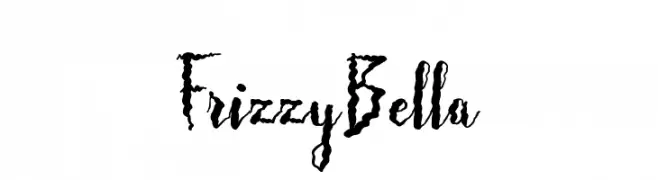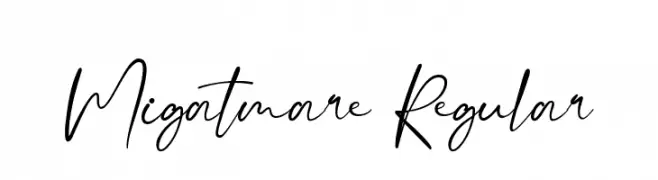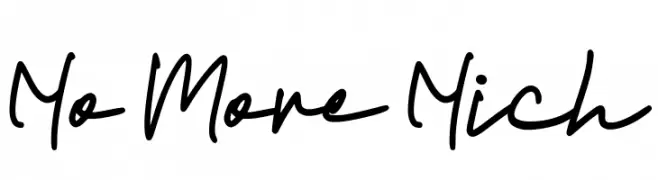
A distressed, chaotic font with a grungy, painted appearance.
A whimsical, handwritten font with a playful and elegant style.
A modern, elegant font with slender letterforms and high contrast strokes.
A casual, flowing handwritten script with elegant cursive strokes.
A bold, geometric font with sharp angles and a modern aesthetic.
A whimsical, decorative font with playful swirls and curls.
An elegant, flowing script font with smooth cursive strokes and dynamic slant.
A wavy, hand-drawn font with a frizzy, dynamic style.
An elegant script font with decorative swashes and high contrast.
A bold, cursive script font with fluid, connected characters.